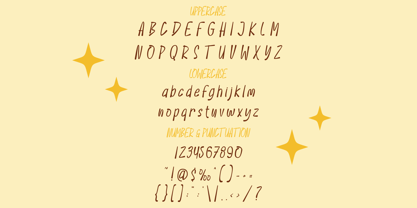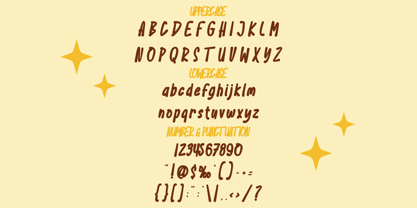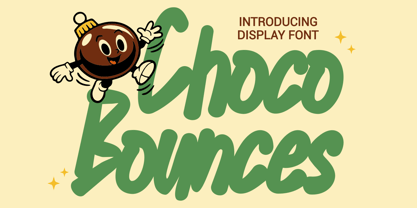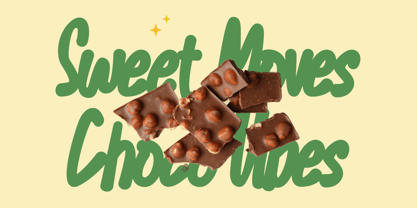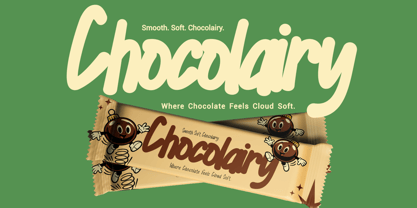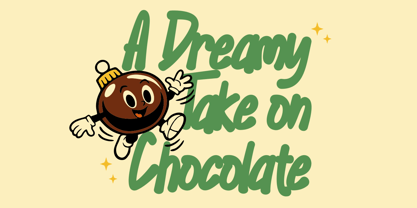
Choco Bounces
by Shanaf
The Choco Bounces Font Family was designed by Yesie Erma Yunita and published by Shanaf. Choco Bounces contains 2 styles and family package options. More about this family
Choco Bounces Display Font features bold handwritten lettering with soft rounded strokes and energetic rhythm. The characters appear thick and smooth, creating a friendly and approachable visual tone. Each letter shows slightly irregular curves that mimic natural marker or brush movement. The stroke weight remains consistent, giving words a stable and solid structure. Ascenders rise gently while descenders flow smoothly, keeping the baseline lively and playful. The proportions feel wide and balanced, which helps brand names remain readable at large sizes. The texture looks organic rather than geometric, reinforcing its handcrafted personality. Choco Bounces Display Font blends playful handwriting with display typography built for strong brand recognition. The overall style communicates sweetness, warmth, and cheerful energy. Designers can use it to create memorable brand titles and expressive lettering compositions. This font works well for product branding in chocolate shops, candy brands, dessert businesses, and snack companies. The bold handwritten style suits logo design, packaging titles, and promotional headlines. It also supports posters, advertising graphics, and brand campaigns that need playful character. The lively curves help attract attention in storefront signage and product labels. Designers can also apply it to greeting cards, invitations, stickers, and creative crafting projects. The font structure fits book covers, magazine titles, and playful quote typography. Businesses focused on sweets, bakery items, or dessert products benefit from its cheerful tone. Choco Bounces Display Font helps brands build strong visual identity with friendly handwritten lettering and bold display presence.
Designers: Yesie Erma Yunita
Foundry: Shanaf